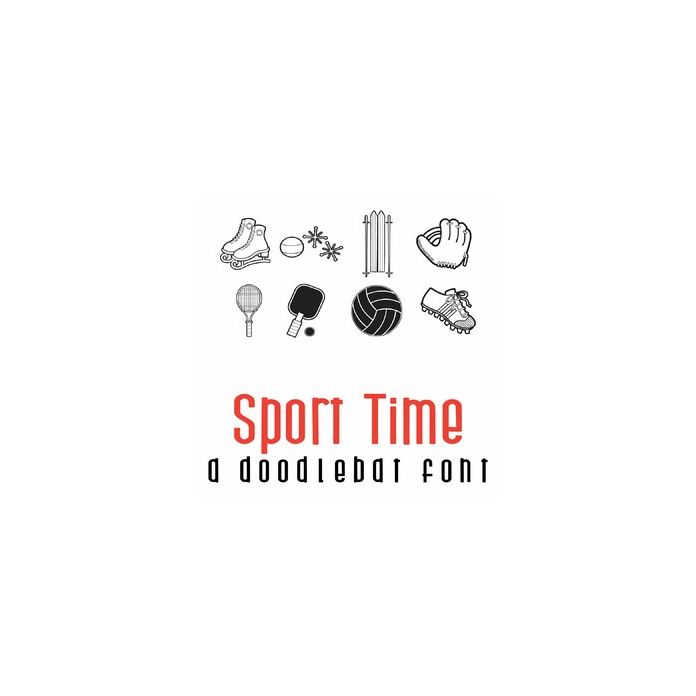
This fun full-color doodlebat font features 31 school sports images. Perfect for school, classrooms, education, cards, crafts, gifts, scrapbook pages, planner stickers, and more!